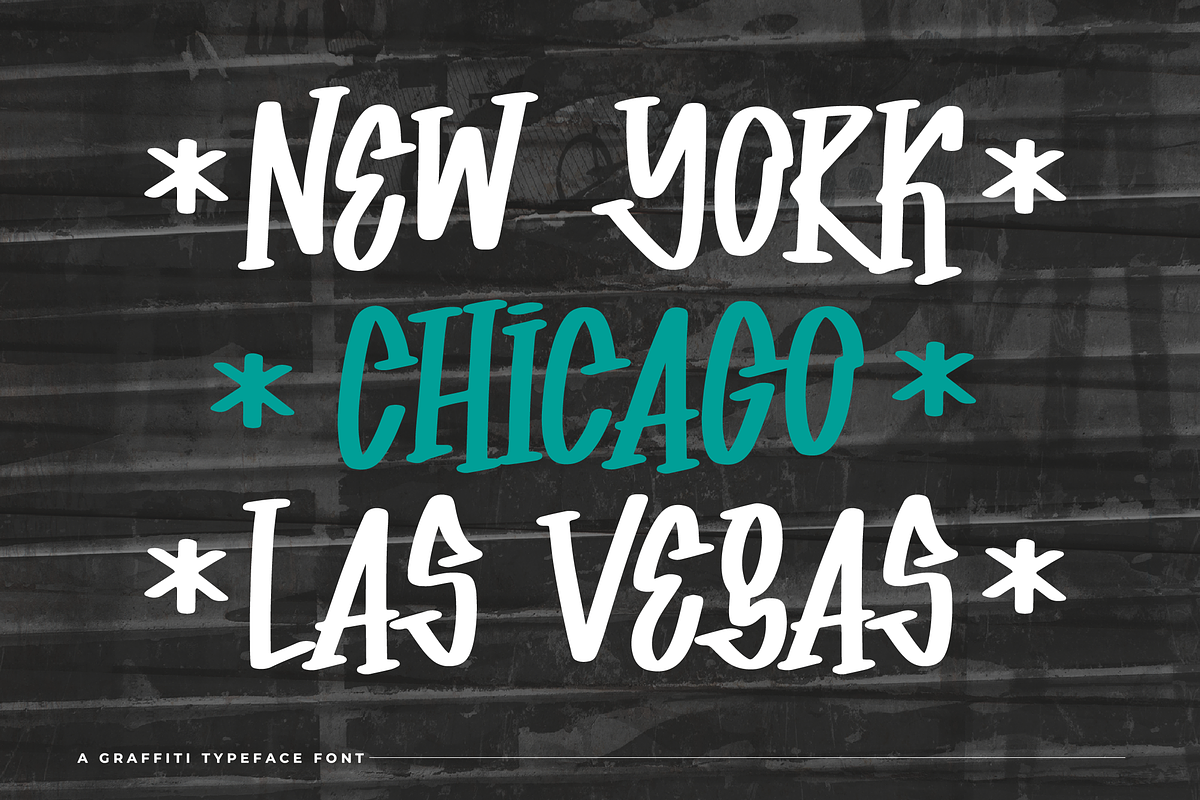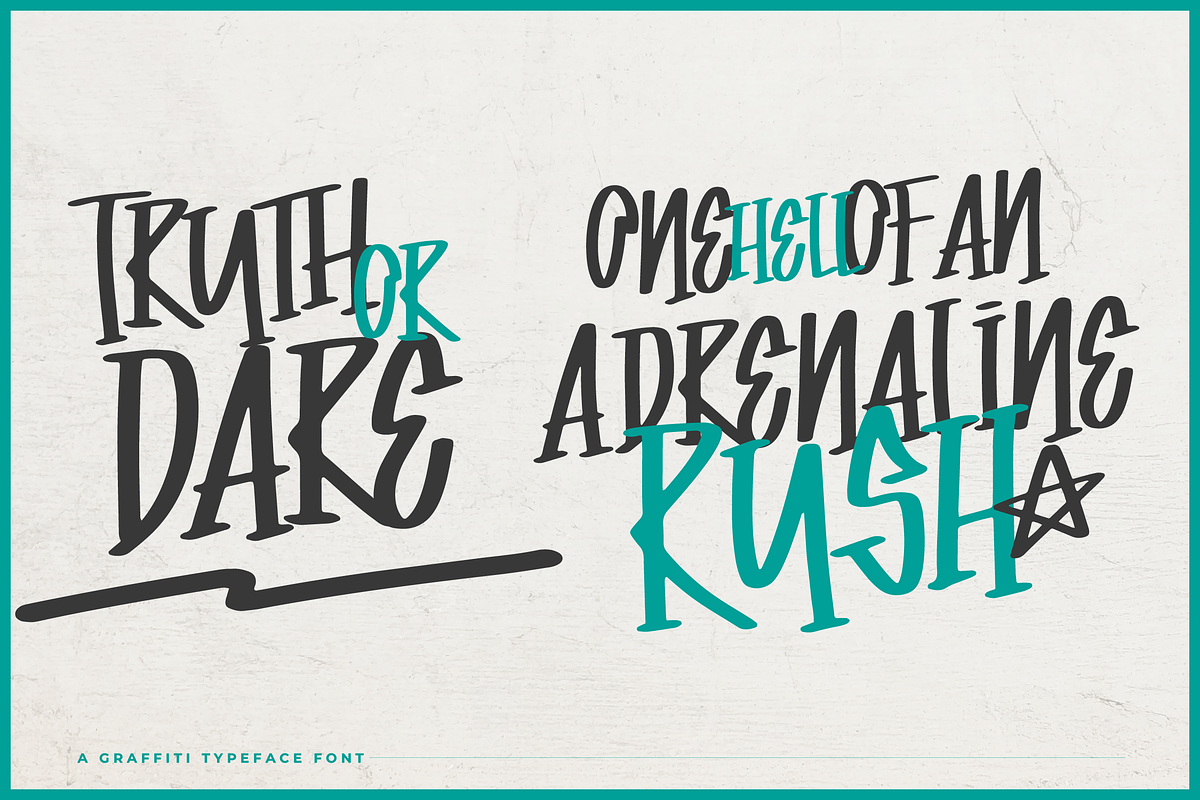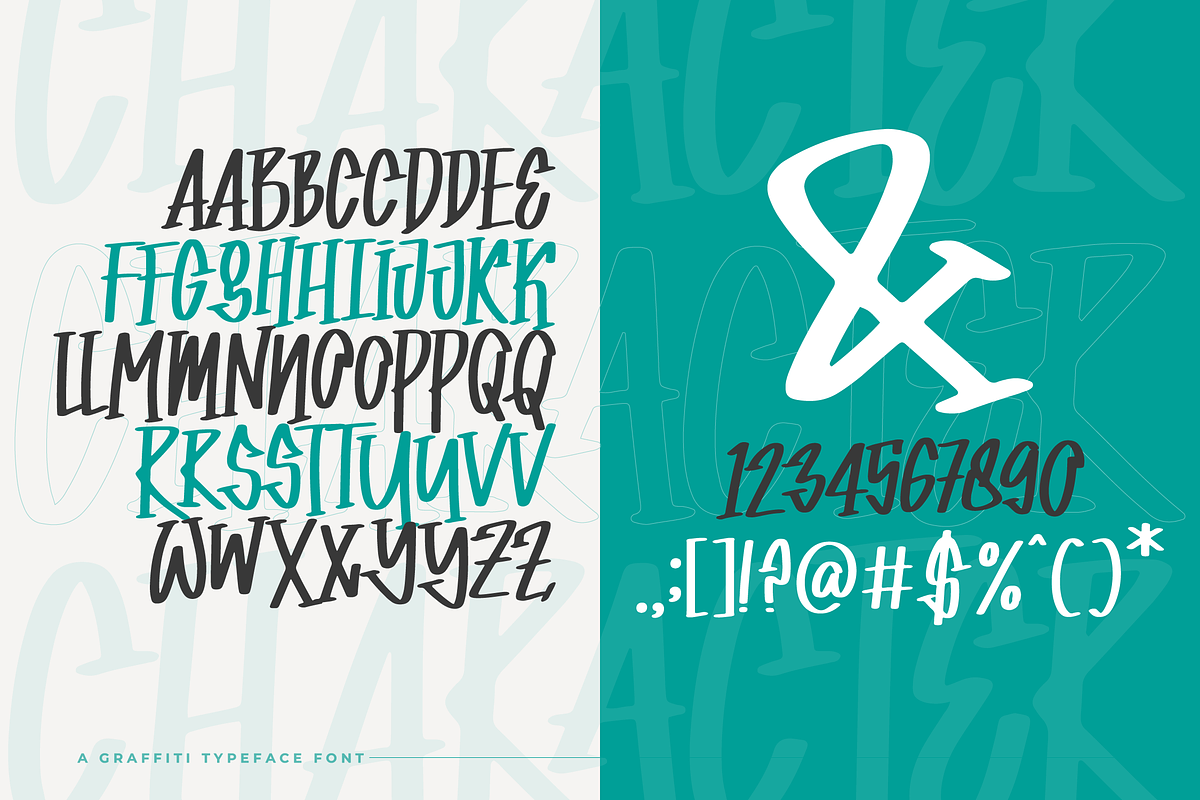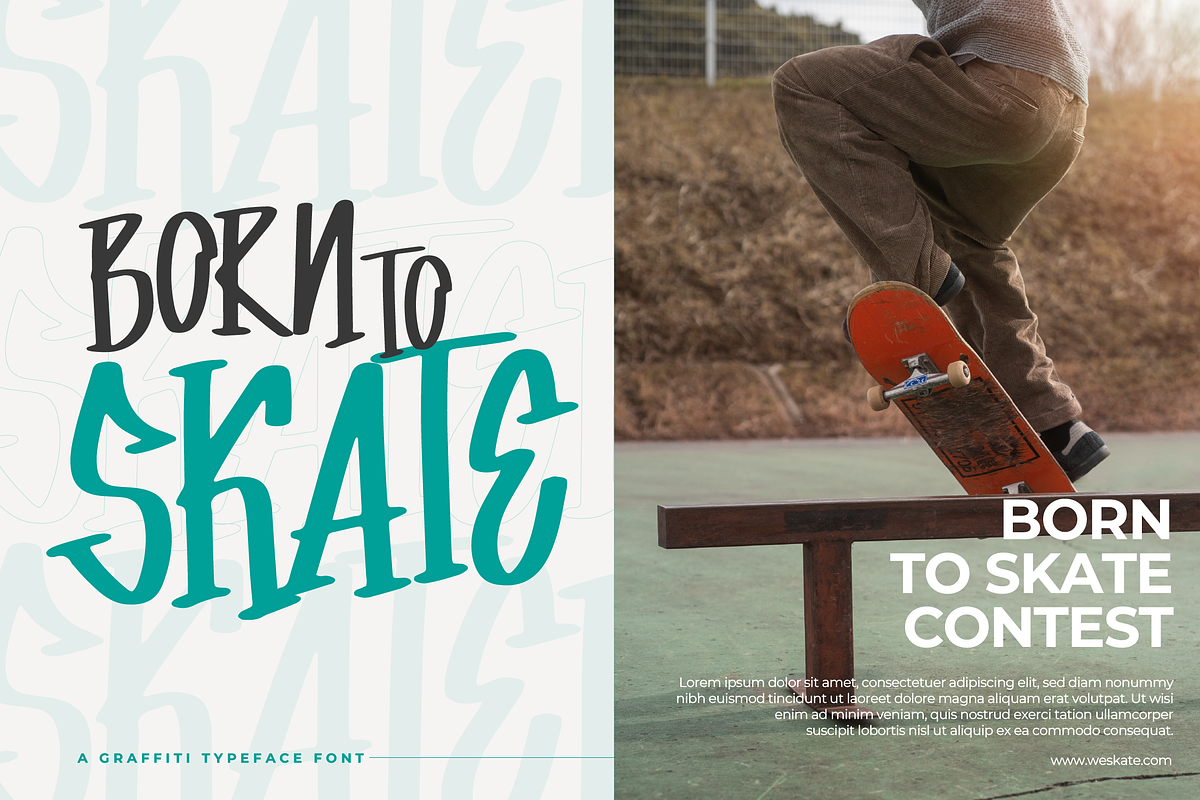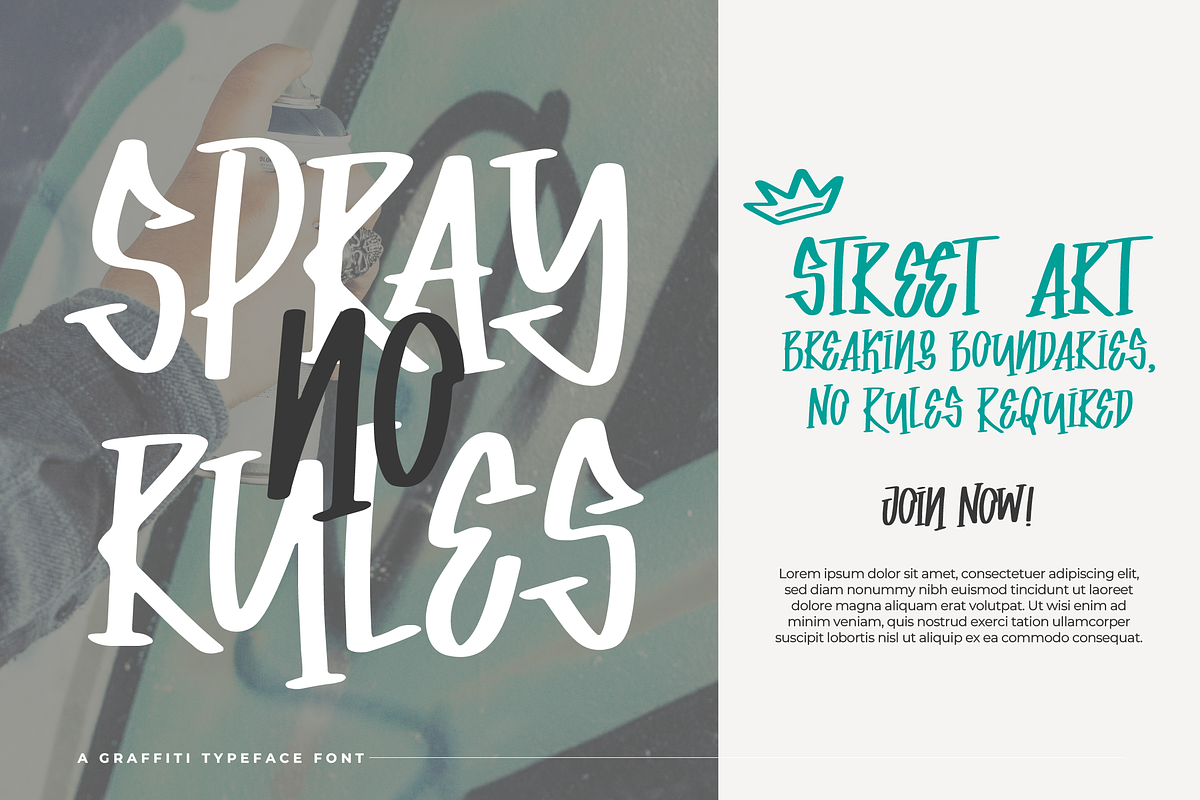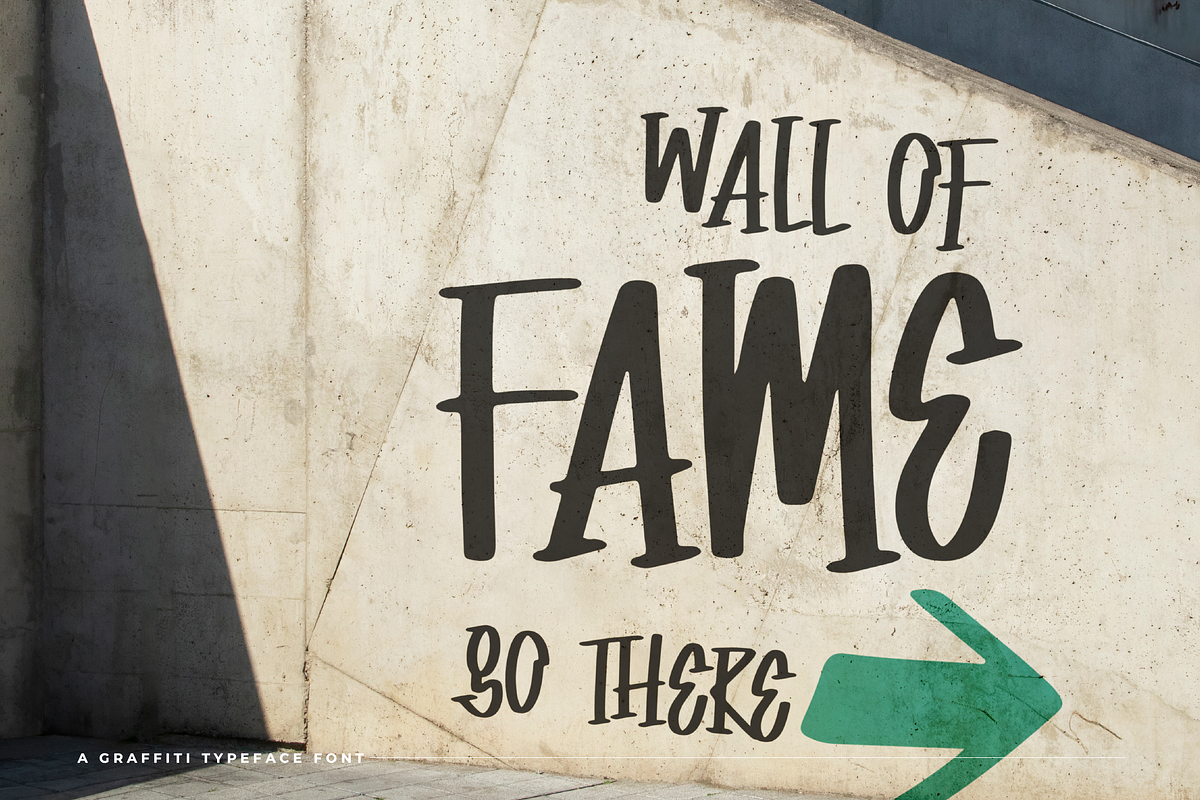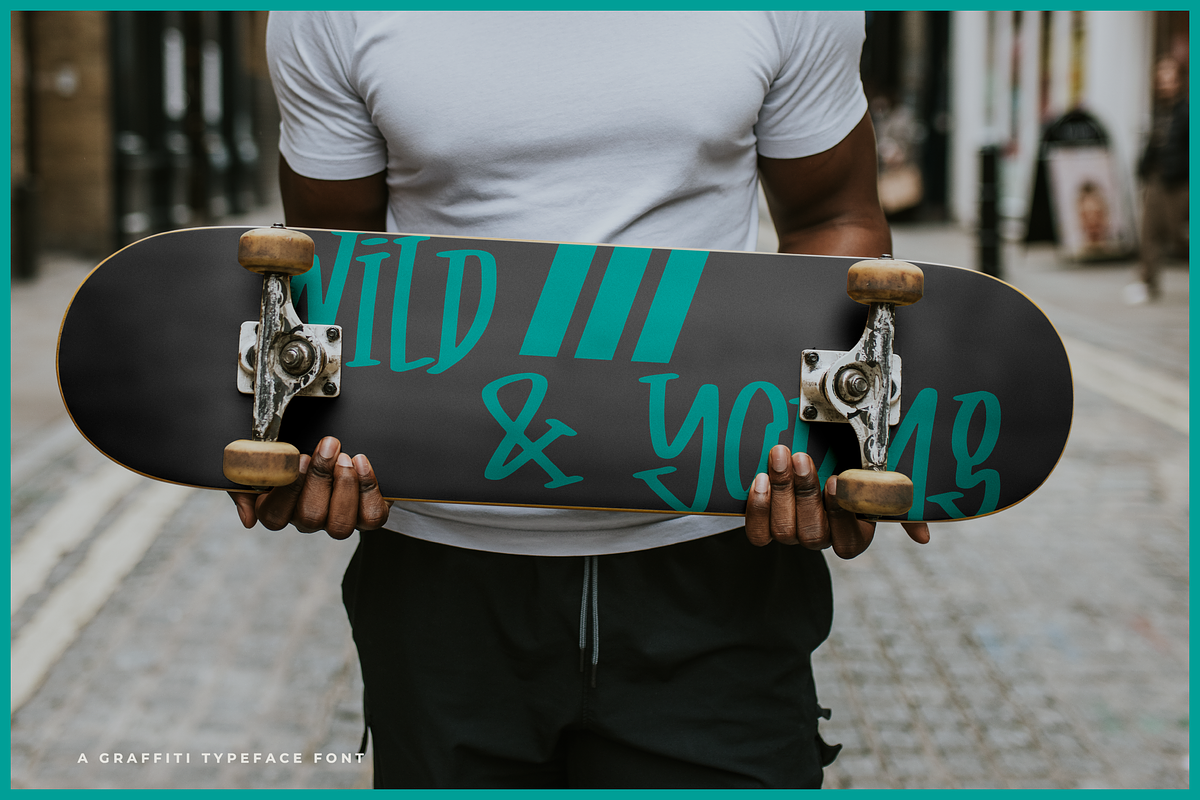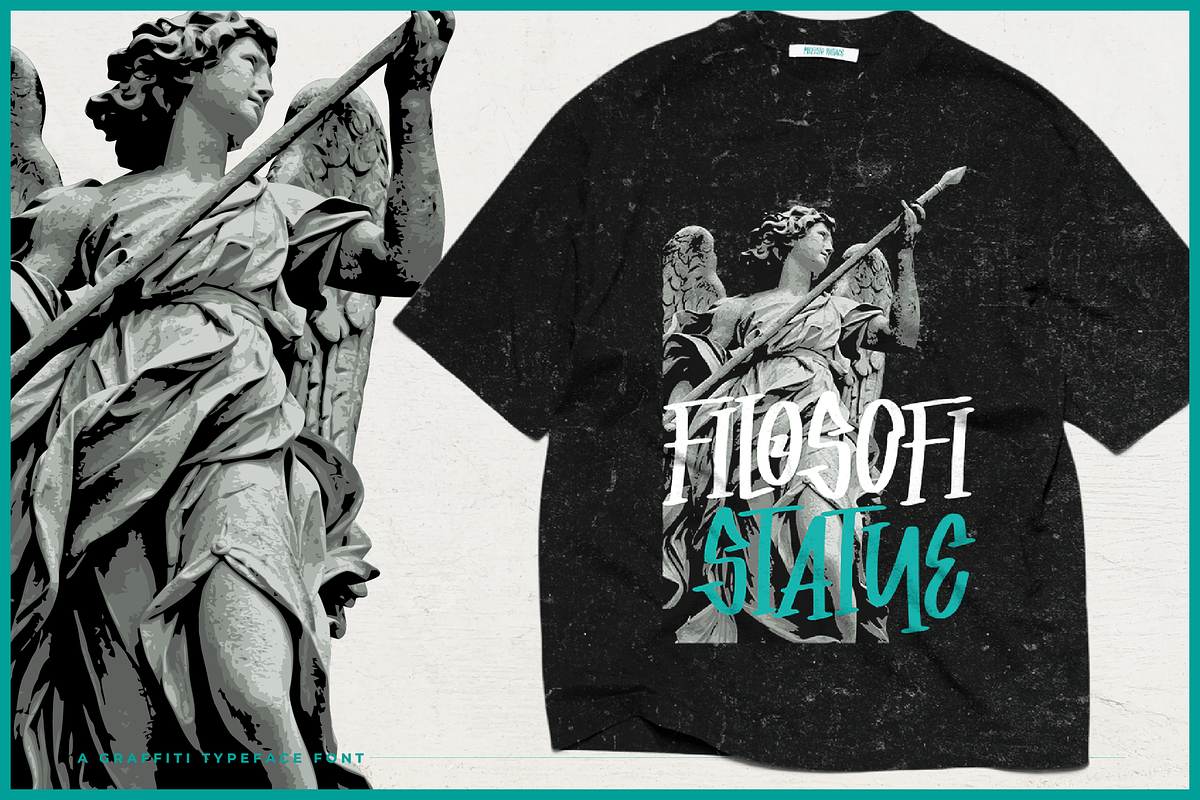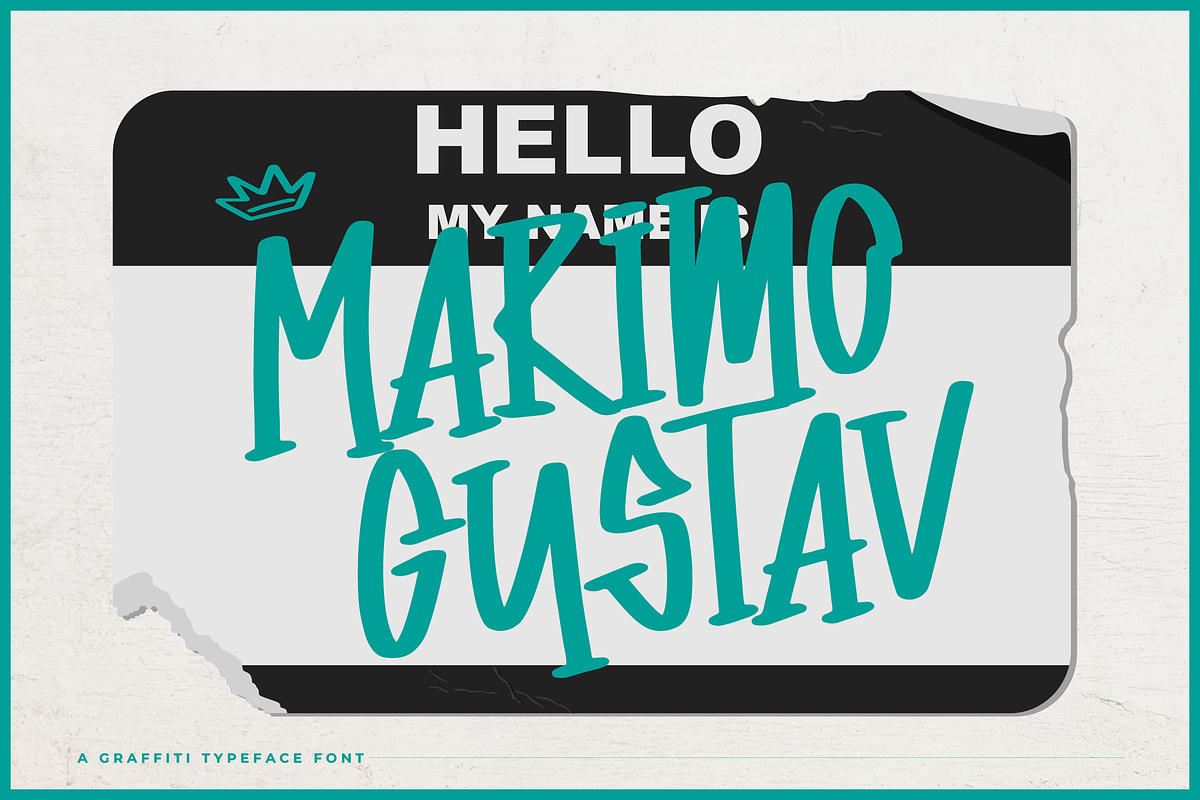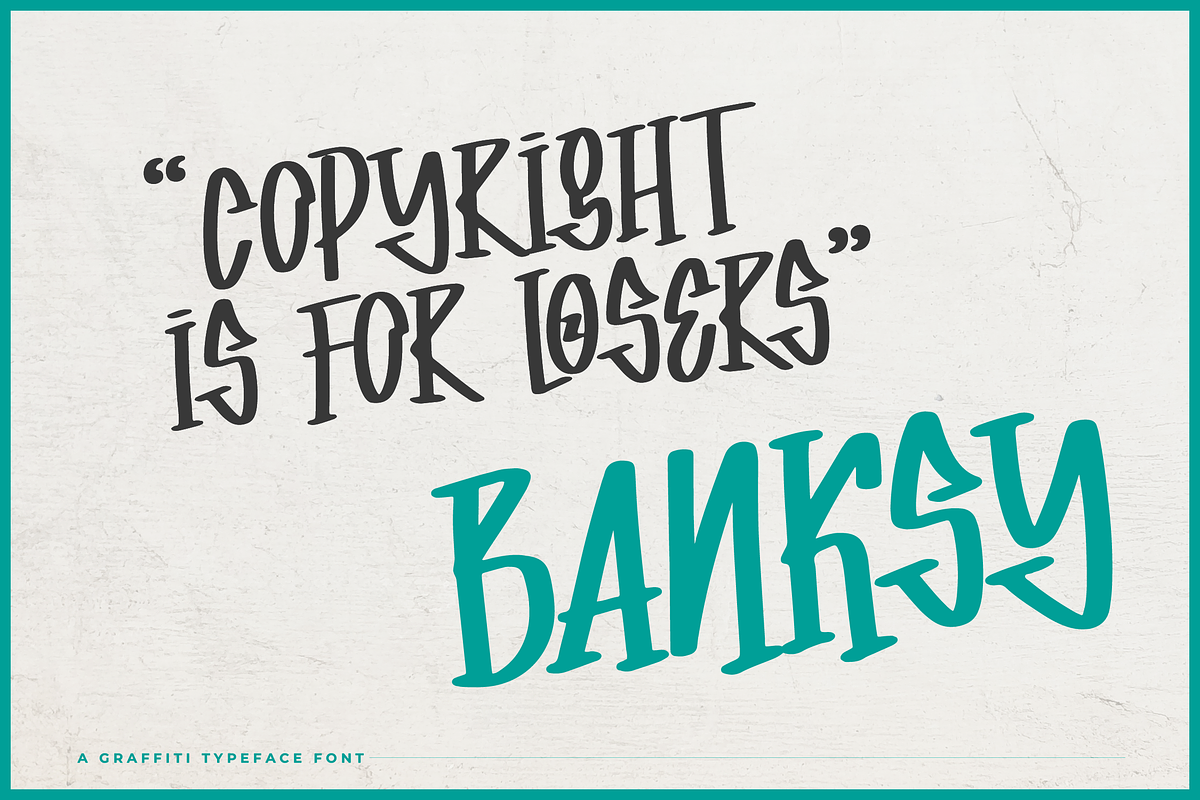
Union Lesson | Graffiti Typeface
Union Lesson | Graffiti Typeface, from Denustudios, suitable for any projects such as: logos, branding projects, homeware designs, product packaging, mugs, quotes, posters, shopping bags, t-shirts, book covers, name card, invitation cards, greeting cards, label, photography, watermark, special events, and all your other lovely projects that need a Graffiti Typeface taste.